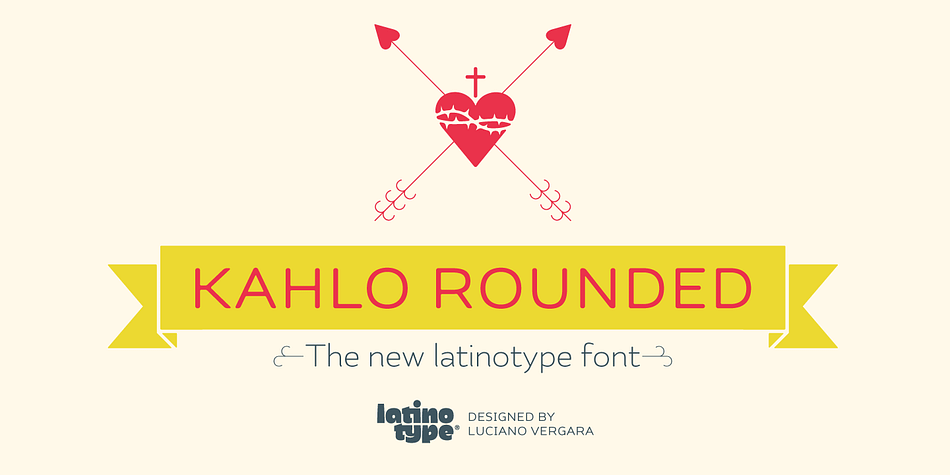
Kahlo Rounded is a multiple classification font family. This typeface has twenty-five styles and was published by Latinotype.
Kahlo rounded is a new version that plays hipster style with a Latin flavor. This time inspired by the strong influence of Mexican decorative we can see on the set of ornaments and patterns.
It is a font with four weights and italics, initial capital letters. It have some alternate characters and endings and works well for magazine headlines, posters, logos, cosmetics packaging, advertising etc.